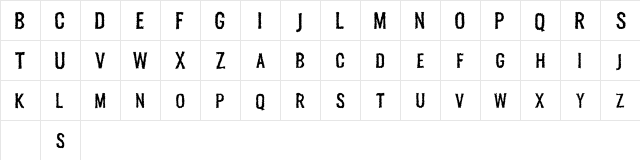
Melvis Free Rough
Design Context for Melvis Free Typeface
Melvis Free trades polish for personality, using distressed and eroded forms to bring grit and attitude to creative work.
A strong fit for alternative music projects, graffiti-adjacent design, and anything that deliberately resists polish.
Pro Tip: Use Melvis Free at larger sizes where the texture and irregularity of each letterform can be clearly seen — it loses its character at small sizes.